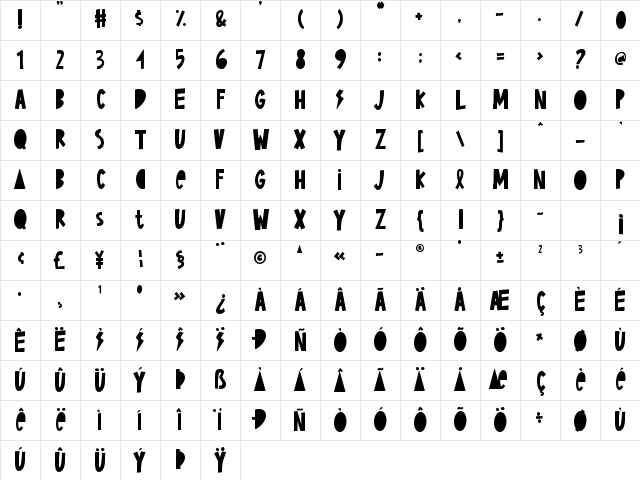
Playful Time Regular
Foundry: Dm Letter Studio
Designer: Dimas Prasetyo
Design Context for Playful Time
Playful Time has an approachable, lighthearted character - its loose, expressive forms are well-suited to children's content, casual branding, and fun-first design.
Font Pairing: Pairs well with a rounded or humanist sans for body copy, maintaining the friendly tone without relying on Playful Time to carry extended reading.
Pro Tip: Use Playful Time at larger display sizes where its expressive character can land. Pair with a clean, simple sans for body copy to maintain readability.